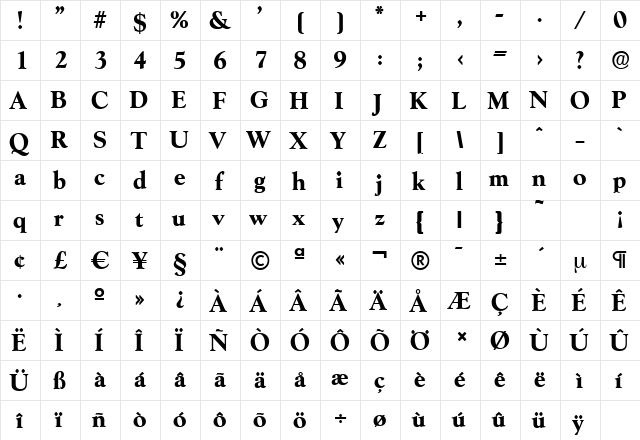
GoudySerial-Xbold Regular
Design Context for GoudySerial-Xbold Typeface
GoudySerial-Xbold is a composed and adaptable typeface that performs quietly and consistently across a wide range of design contexts. The heavy weight commands attention and anchors typographic hierarchies.